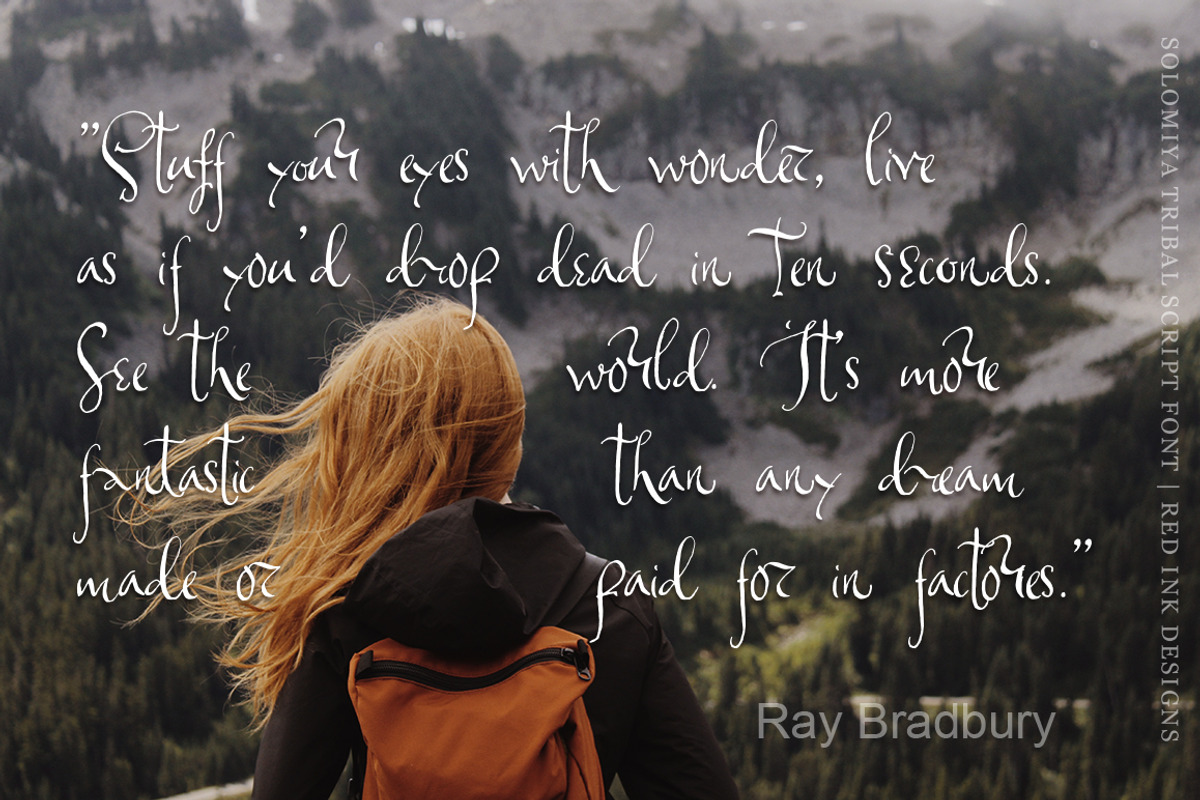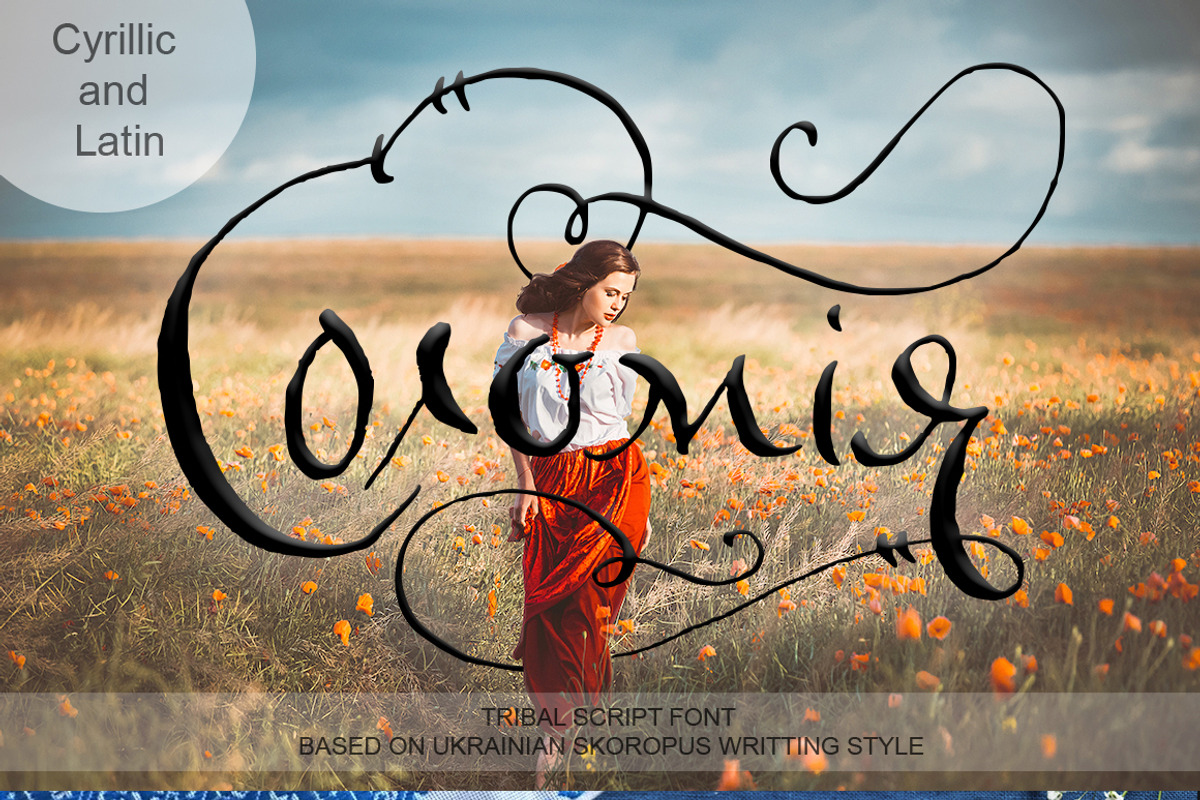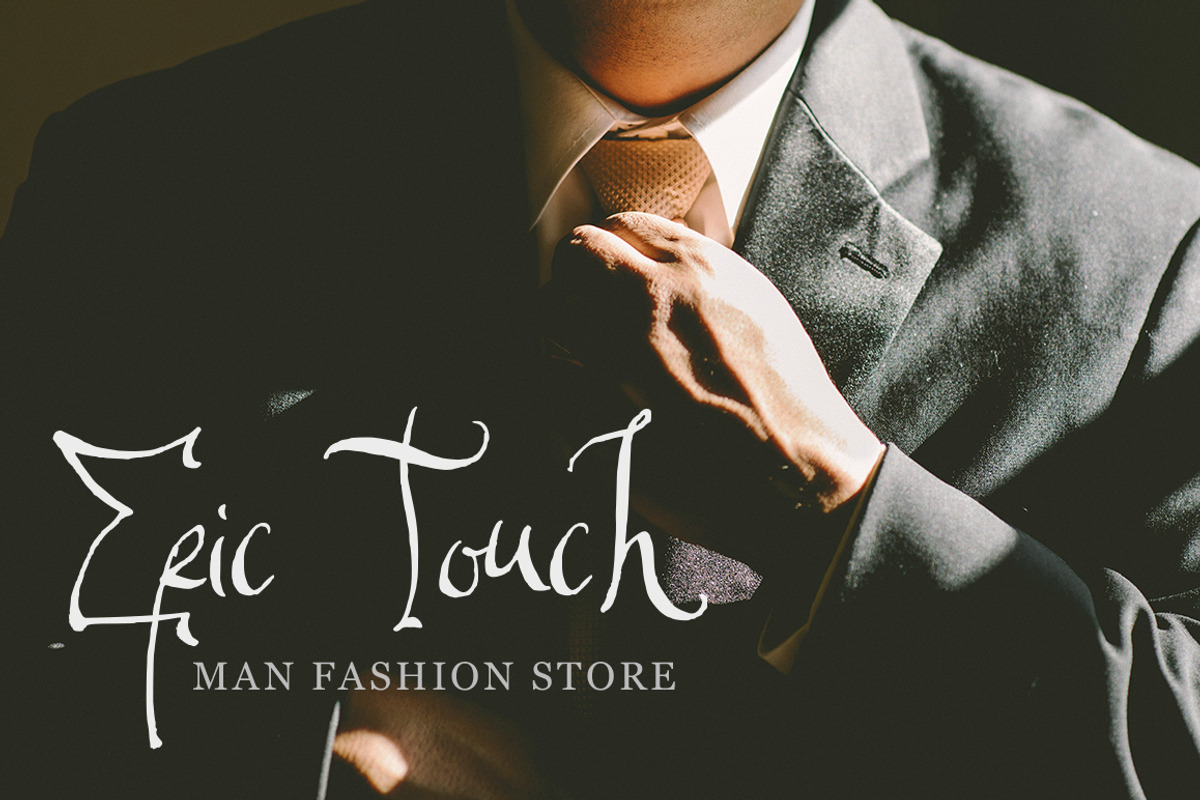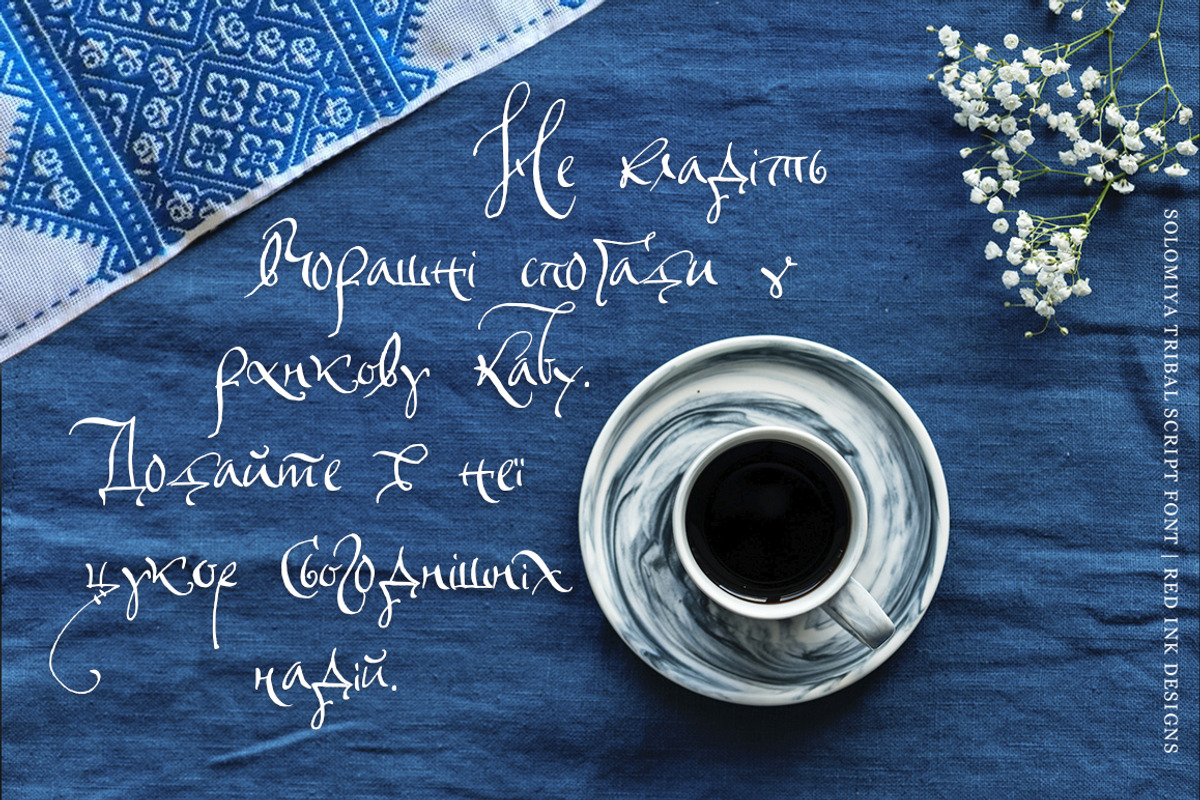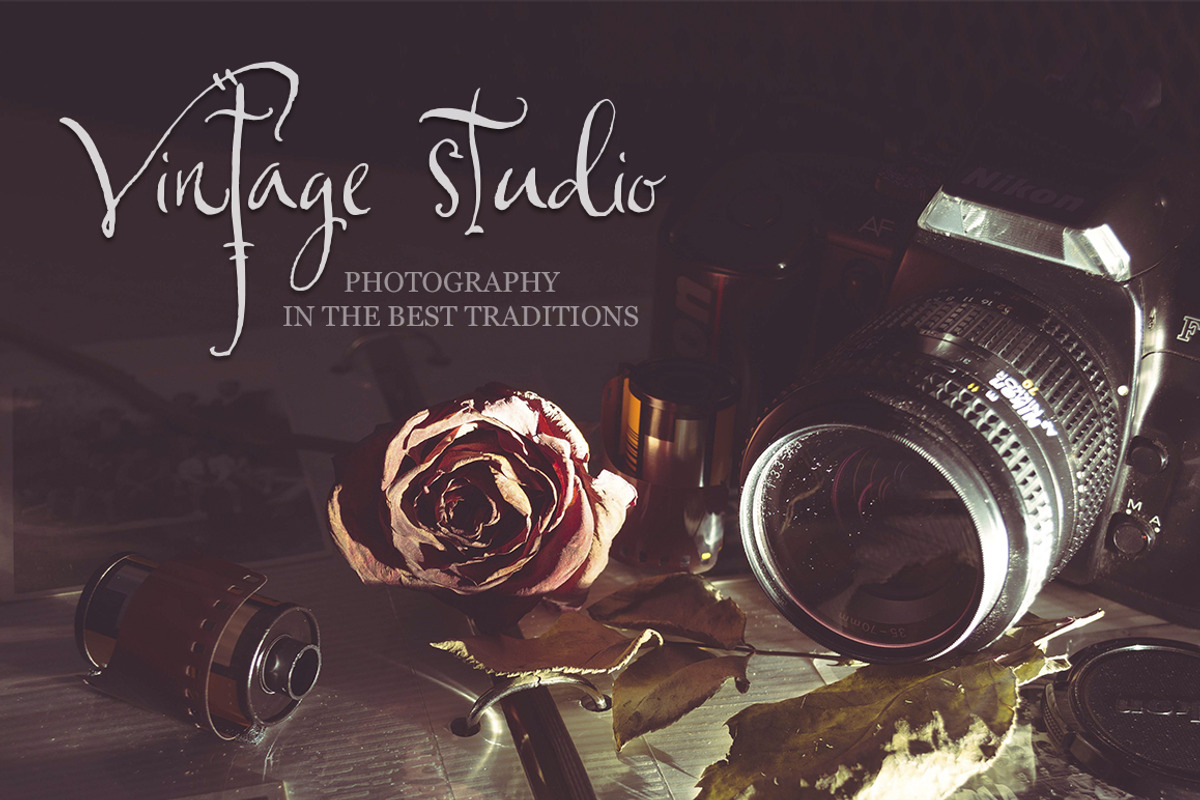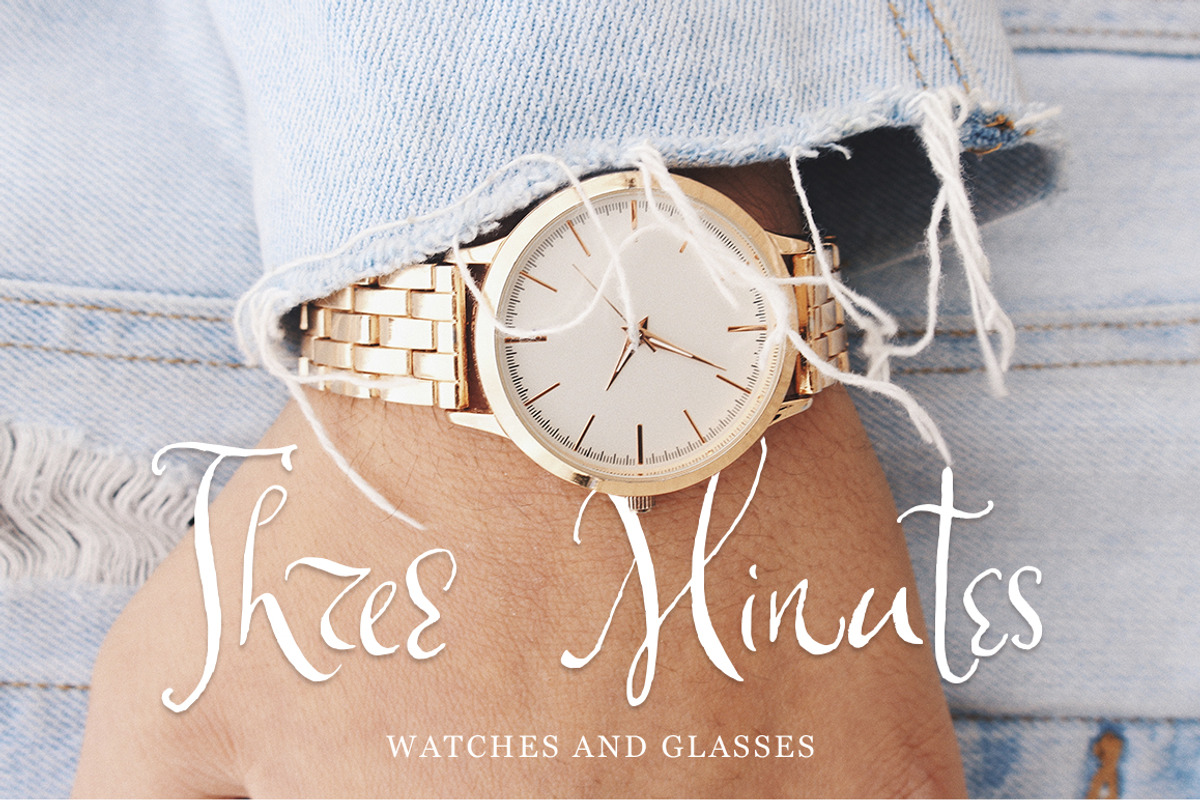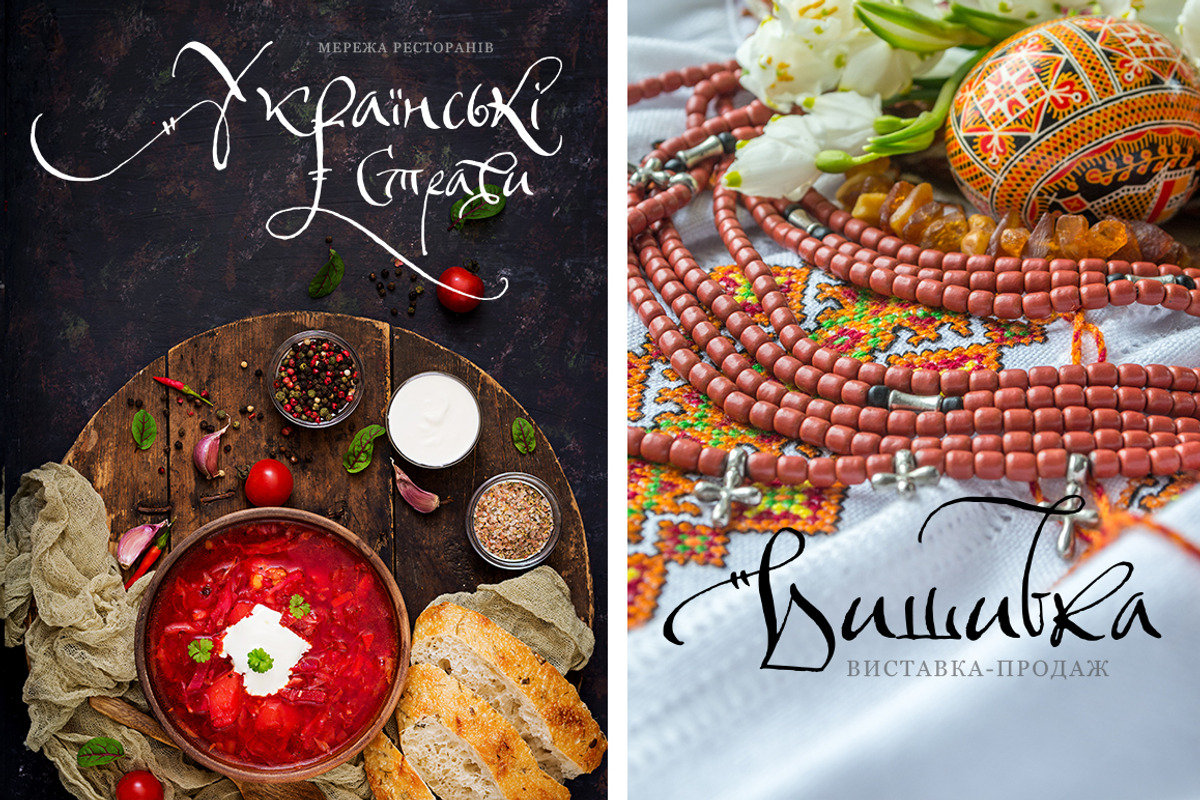
Solomiya.Tribal script font.
I'm happy to introduce you Solomiya Script Font with vintage, tribal, light, and magic feel.
Solomiya font based on Ukrainian skoropus - traditional writing style in the 17th century in Ukraine.
Solomiya has incredible variability of letters, playful slopes and uniqueness of handwritting. This is my attempt to acquaint you with the amazing richness of Ukrainian tribal typographic inscriptions, based on handwriting of the Ukrainian Zaporozhian Cossacks.
Solomiya is a perfect tool to create amazing designs, like greeting cards, modern t-shirts, posters, mugs, luxury branding materials, wedding and event stationery, social media overlays and any other projects you are working on.
Each letter includes 3 alternate variants for uppercsase and 4 alternate variants for lovercase (for Cyrillic & for Latin). Font includes more than 90 languages.